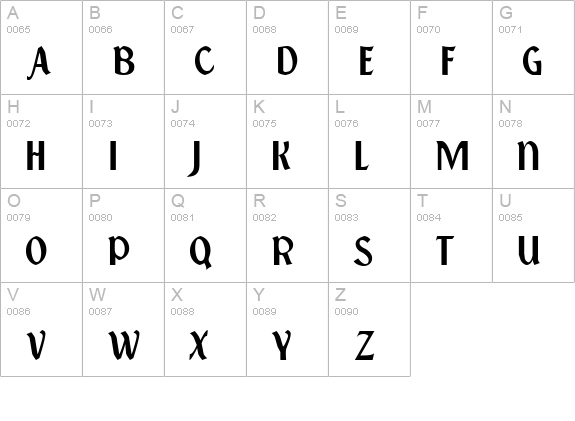
Federhozen Bold is a strong, high-contrast variant in the Federhozen typeface family \xE2\x80\x94 well suited to headlines, attention-grabbing titles, and strong calls-to-action.
Federhozen Bold font is a bold and eye-catching typeface perfect for making a statement in your designs. With its strong and modern look, this font commands attention and adds a touch of sophistication to any project. The thick, sturdy lines of Federhozen Bold make it ideal for headlines, logos, posters, and more. What's even better is that Federhozen Bold font is available for free download at FontsMarket.com. Yes, you read that right - you can get your hands on this striking font at no cost at all. So why wait? Elevate your designs with Federhozen Bold today and make a lasting impression with this versatile and stylish typeface.